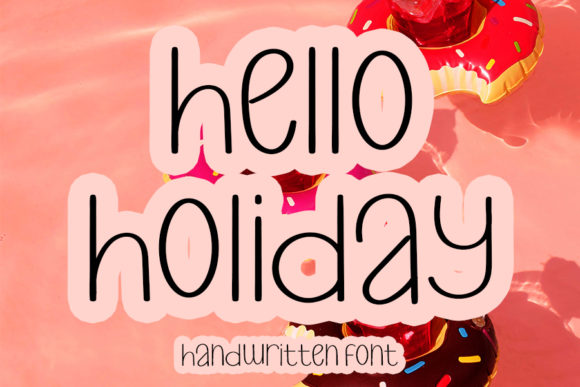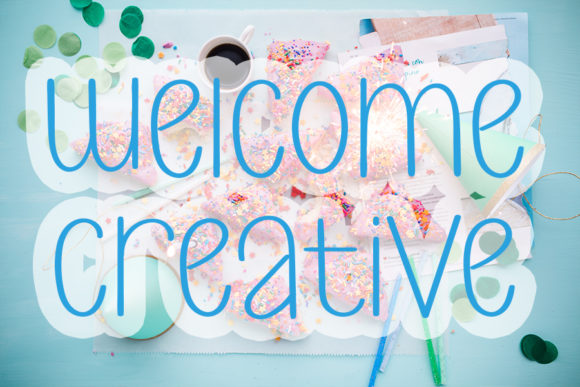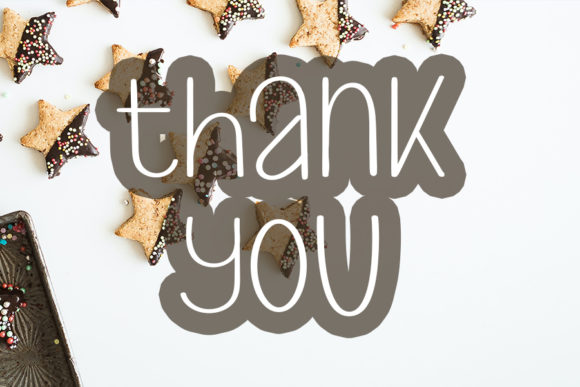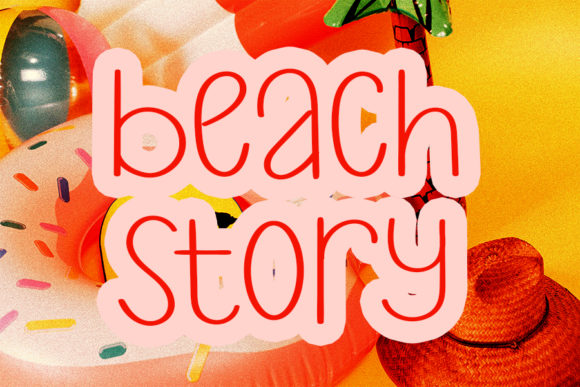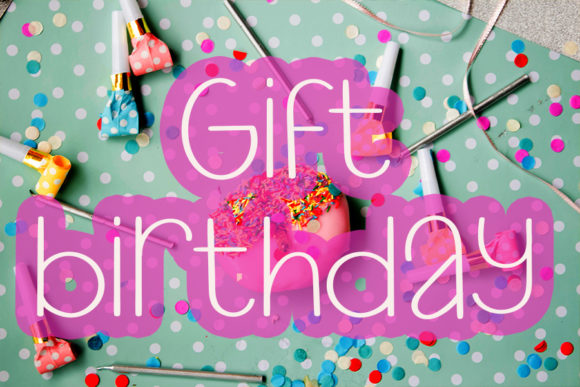
Hello Holiday Font
About Hello Holiday Font
Hello Holiday is a sweet and friendly handwritten font. Its natural and unique style makes it incredibly fitting for a large pool of designs. The only limit is your imagination!